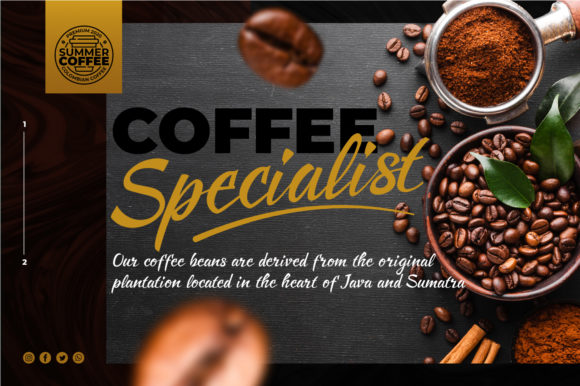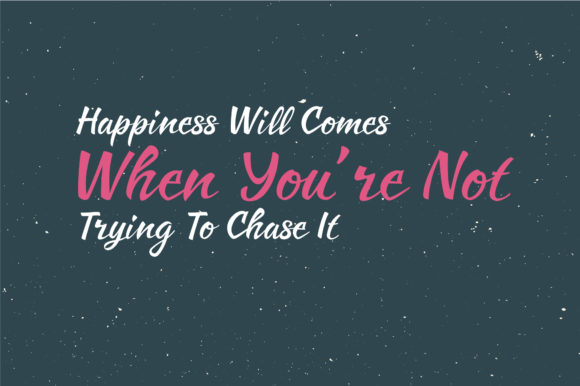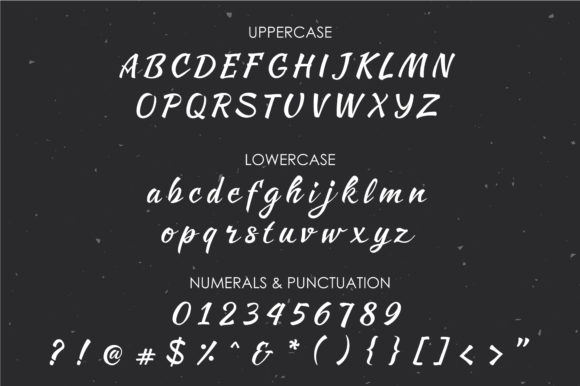
Introduction to Seminyak Font
Have you ever been working on a creative project and suddenly, the perfect font pops into your mind, elevating the entire design? That’s exactly what happens when you discover the Seminyak Font. This exquisite handwritten font is a game-changer for designers, offering a unique blend of classy calligraphic influences and contemporary freshness.
As a valuable resource for any design project, the Seminyak Font is perfect for those who crave high-quality, versatile typography. Whether you’re working on a branding project, a creative campaign, or even a personal blog, this font is sure to bring your vision to life. With its transparent background and free download option, you can easily incorporate it into your next creative project and experience the magic for yourself.
So, are you ready to discover the perfect font to take your designs to new heights? Let’s dive into the world of Seminyak Font and explore its features, benefits, and uses in various design projects.
Key Features of Seminyak Font
- High-quality, unique font design perfect for creative projects requiring a sophisticated look
- Designed to be versatile and adaptable for a wide range of design applications, from logos to typography
Honest Review: Seminyak Font
As a designer, I’m always on the lookout for high-quality design resources to elevate my creative projects. Recently, I came across the Seminyak Font, and I’m excited to share my thoughts on it.
- High quality: The font is beautifully designed, with a clean and modern aesthetic that’s perfect for a variety of creative projects.
- Limited character set: While the font is beautifully designed, its character set is relatively limited, which may not be suitable for all types of projects.
- Not suitable for complex typography: The font’s design may not be the best choice for complex typography projects, as it can become difficult to read at smaller font sizes.
Overall, I’m impressed with the Seminyak Font, and I think it’s a great addition to any designer’s toolkit. While it may have some limitations, its high-quality design and free download make it a valuable resource for creative projects.
Some tips for getting the most out of Seminyak Font include using it for creative projects that require a high-quality, elegant font. You can use it for headings, titles, and body text in your design. Common use cases include wedding invitations, branding materials, and design templates.